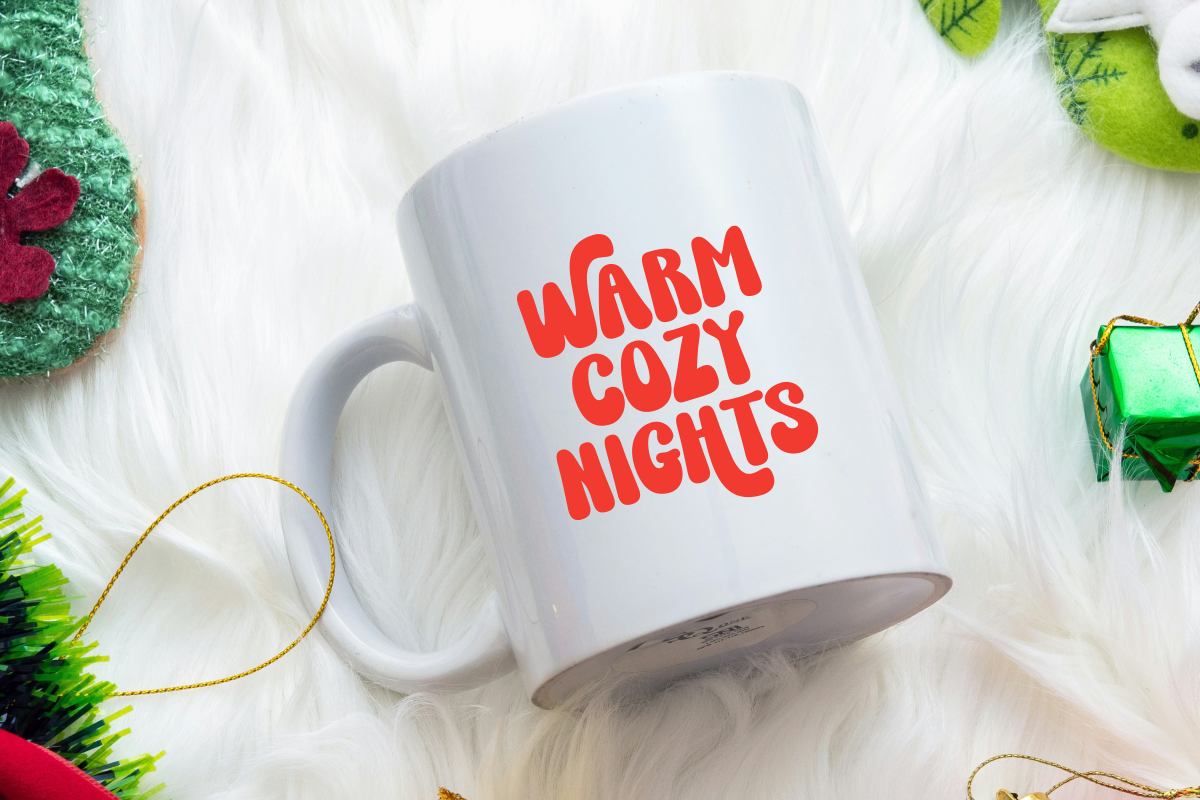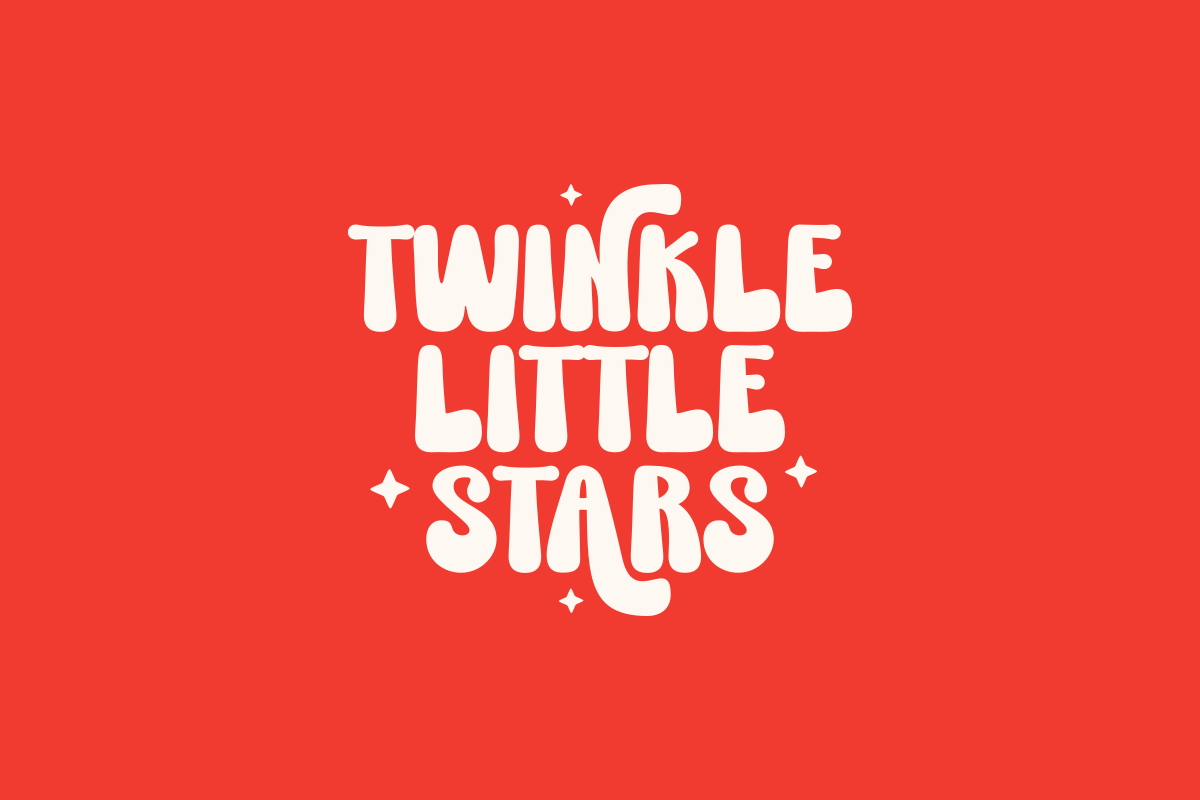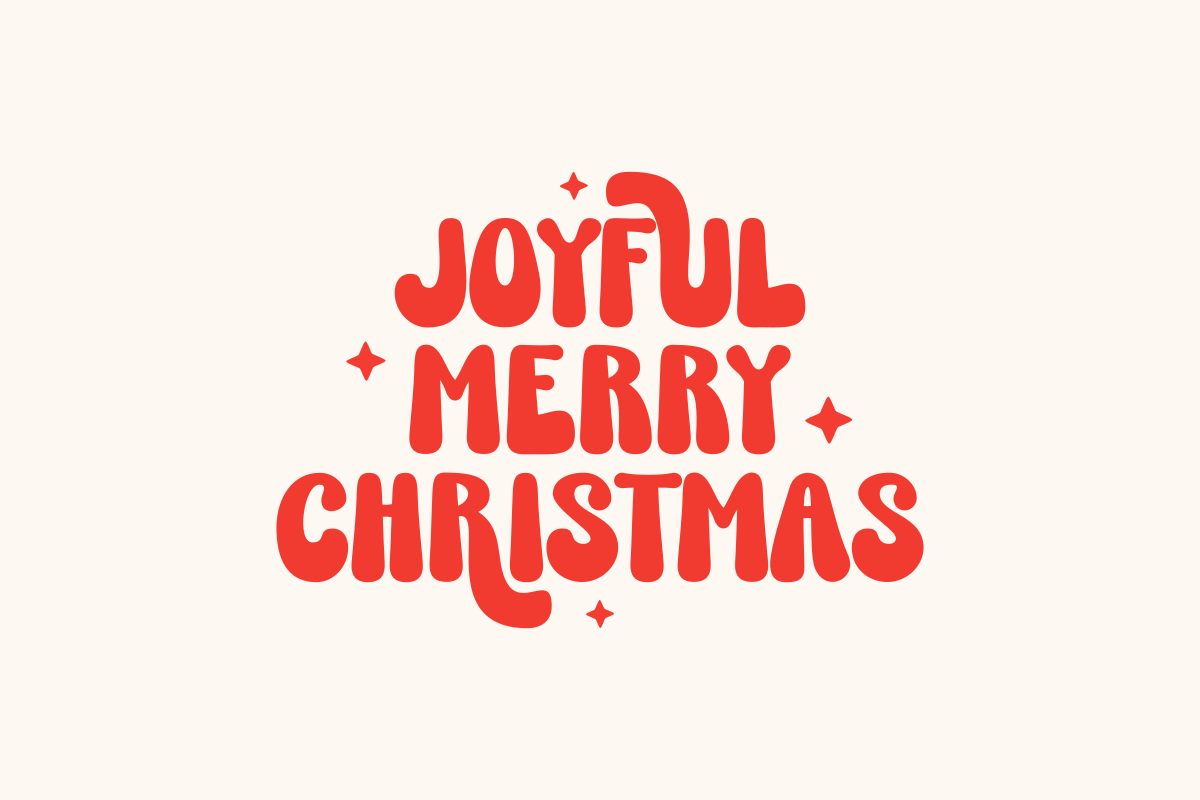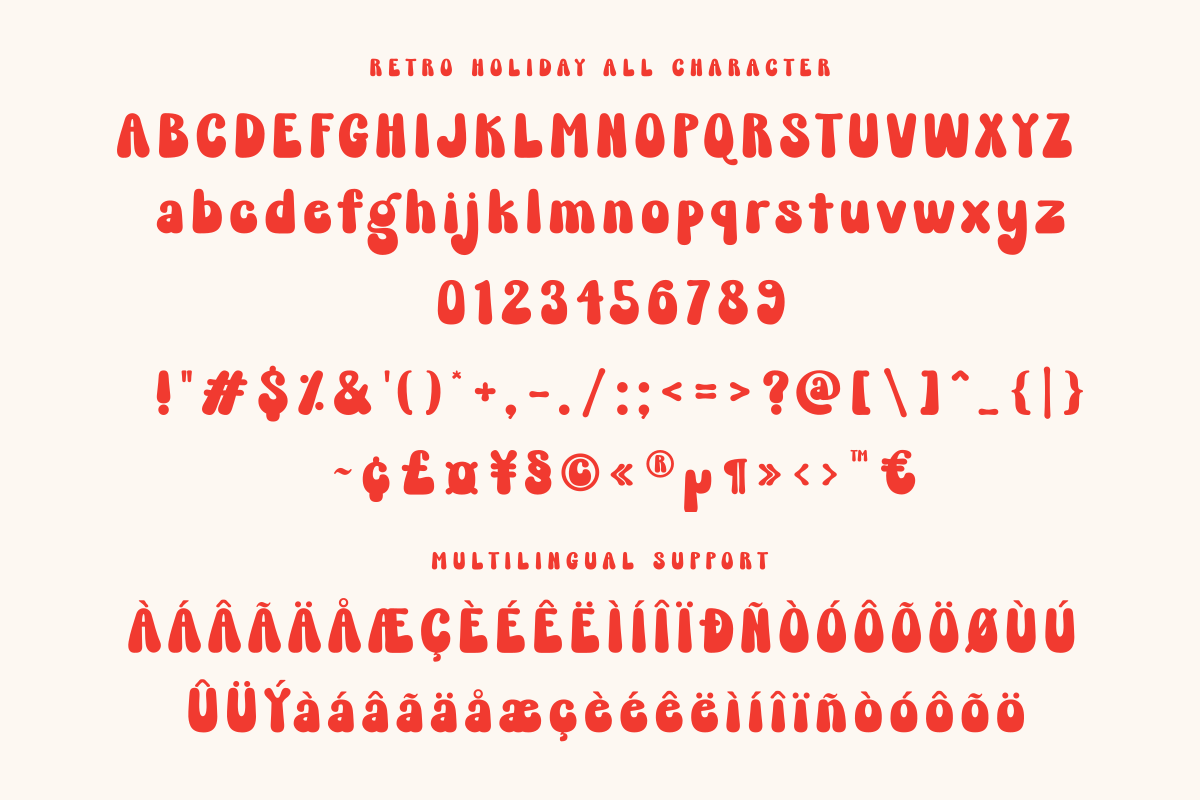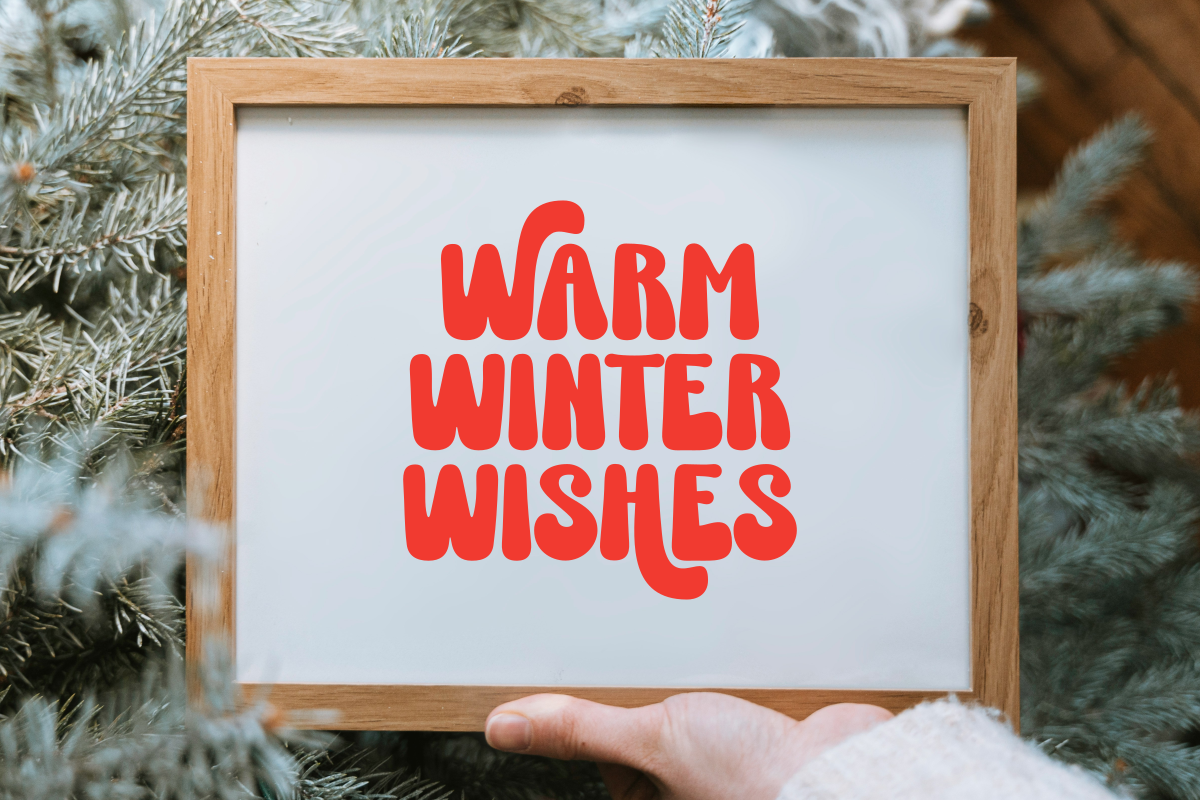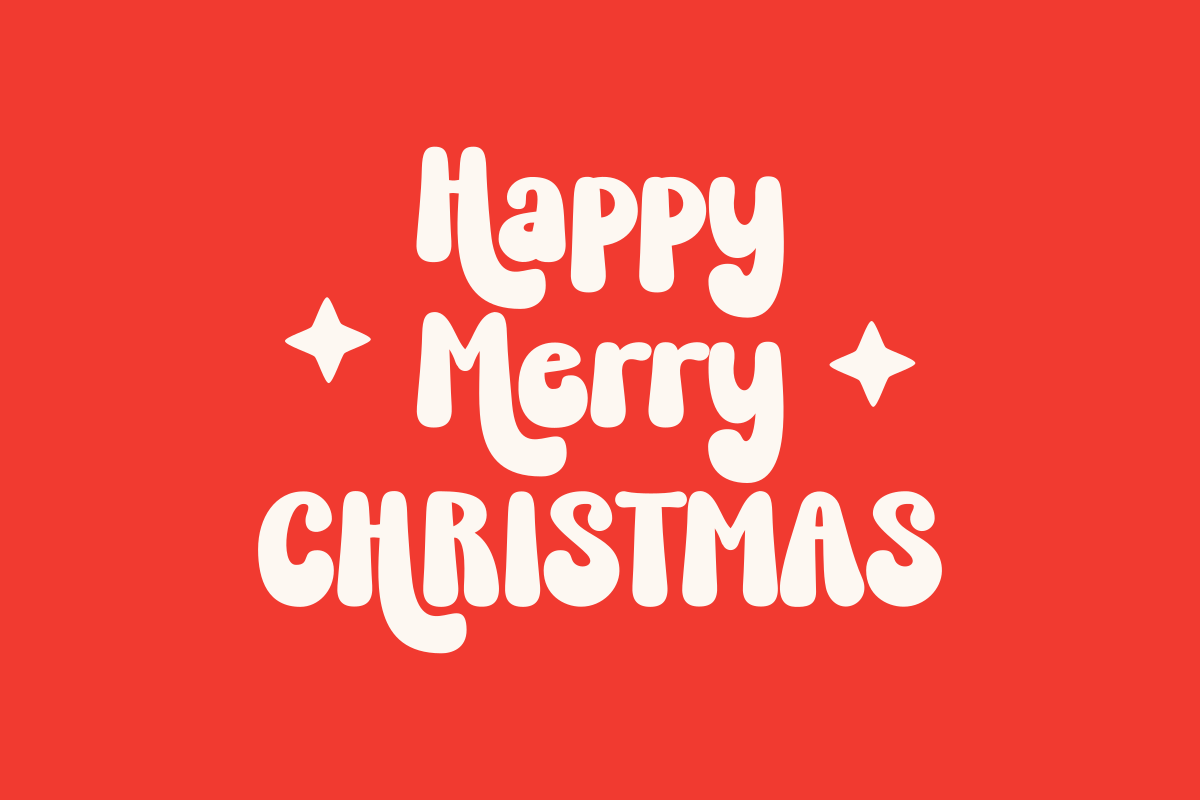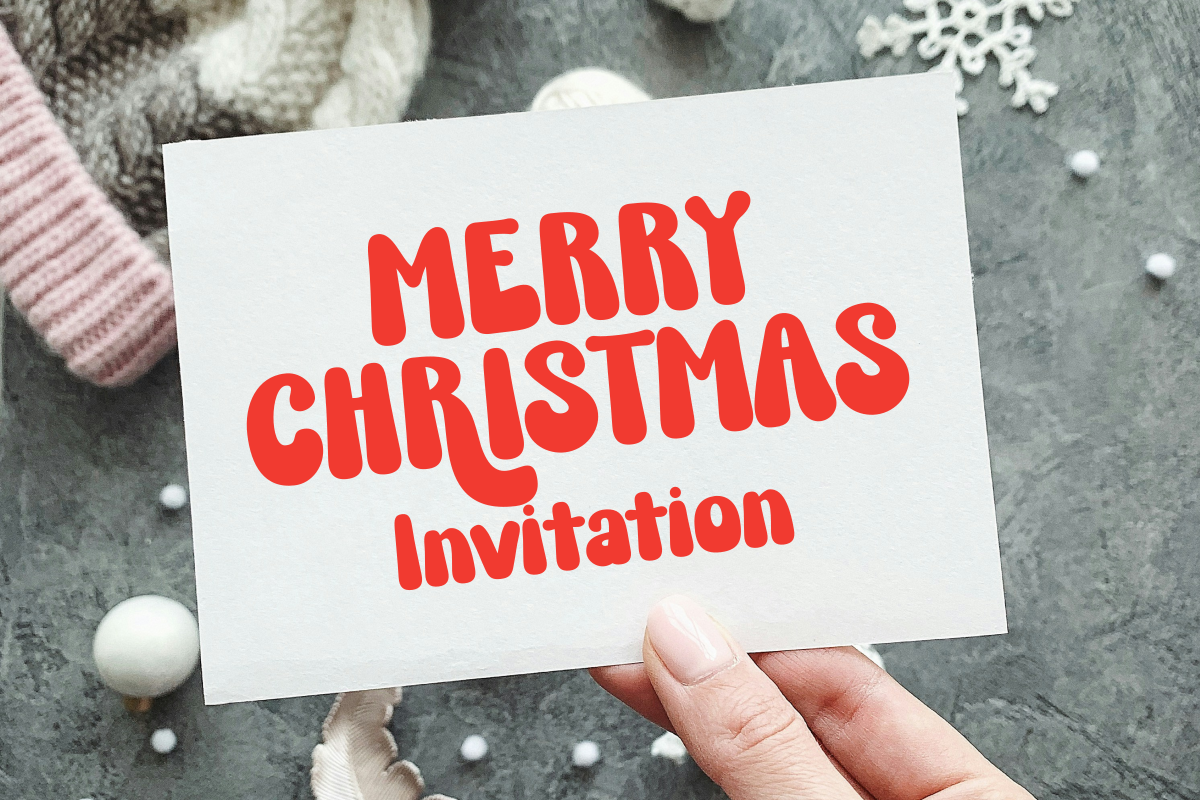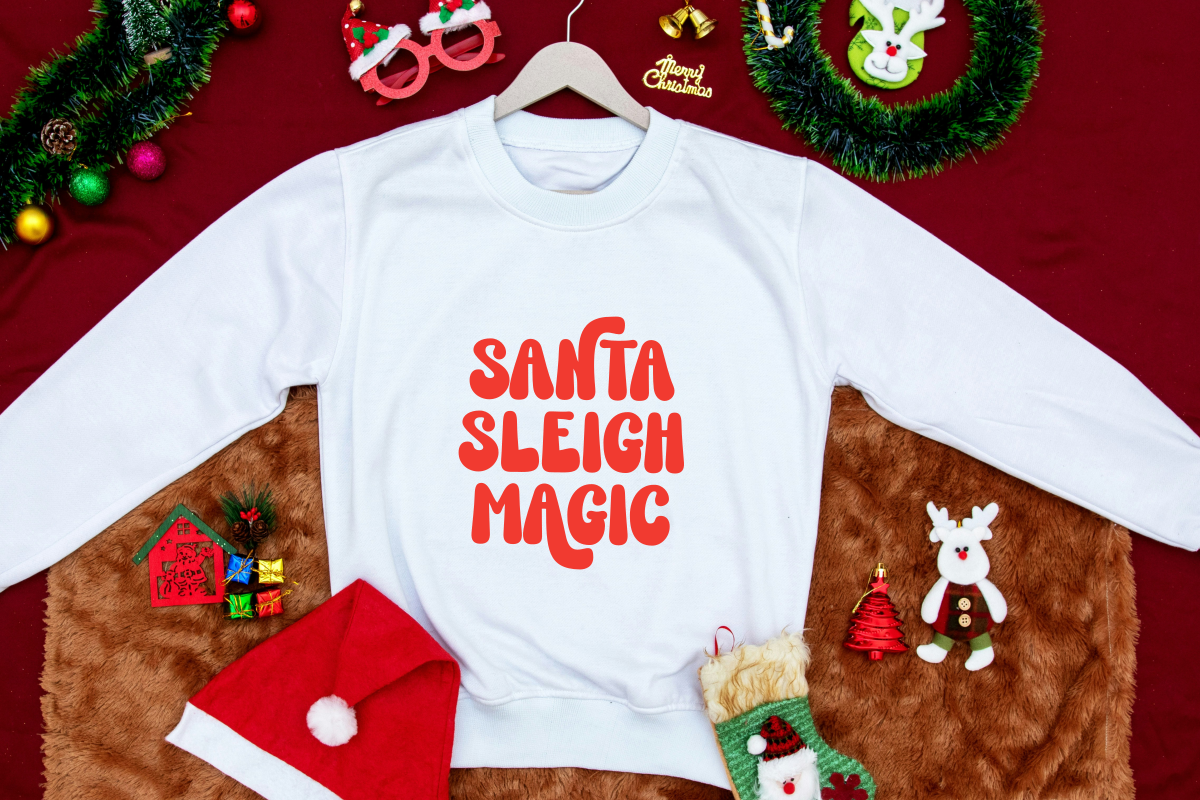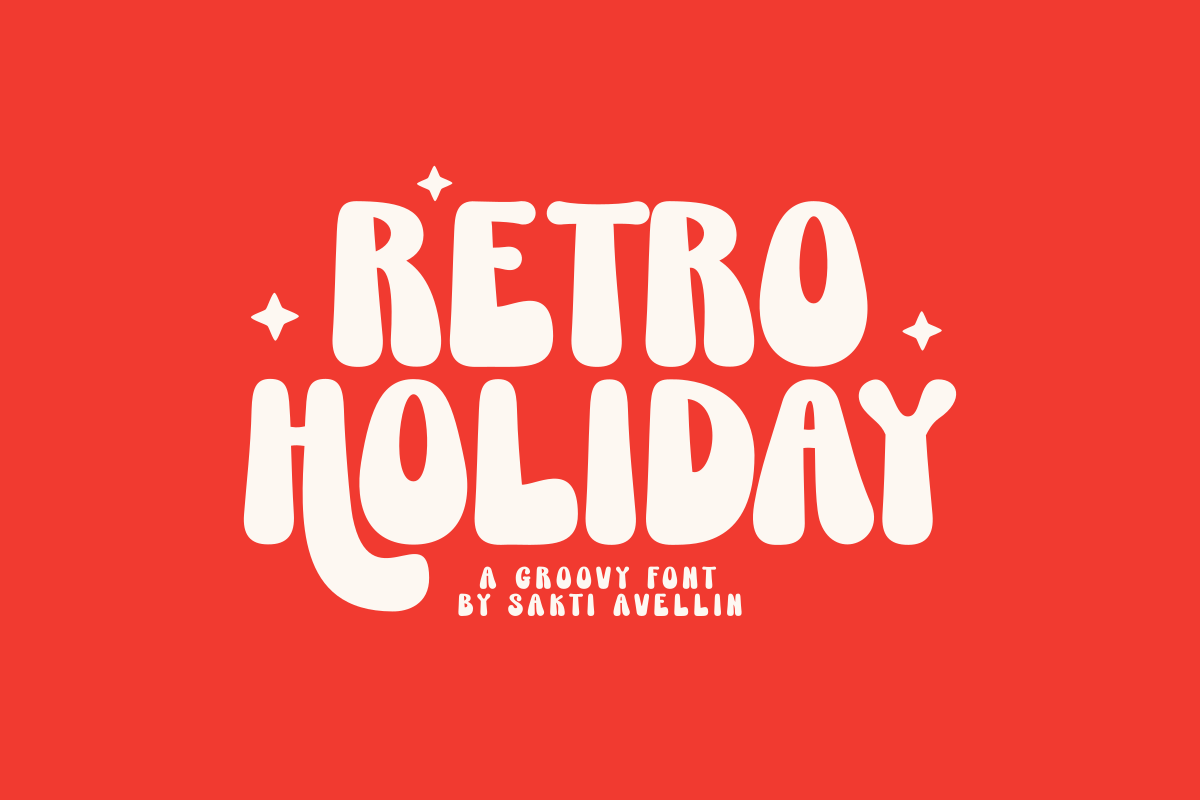
Retro Holiday - Groovy Display Font
Retro Holiday is a spectacularly fun, chunky, and groovy seasonal font that perfectly captures the nostalgic, celebratory vibe of the 1970s Christmas season. This bold chunky display font features smooth, exaggerated curves and a playful, festive flow, making it essential for Christmas invitations, cheerful seasonal branding, holiday t-shirt designs, festive posters, and fun social media graphics. Its distinctive, bold style ensures it is a powerful display typeface for headlines and product packaging, appealing to a trendy audience seeking a cute, vintage look. Get ready for some groovy cheer with this delightfully Christmas retro font!